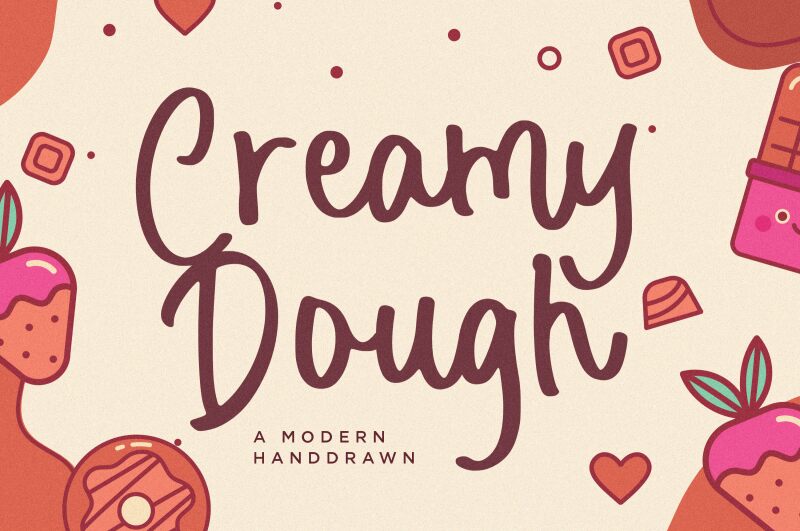
Creamy Dough
Creamy Dough font by Balpirick Studio is a friendly modern script carrying a handwritten style. Its characters are casual, approachable, and warm as if written using an ink pen on real paper. This font follows other popular contemporary calligraphies but gives a unique vibe to each character.
This free handwritten font can be used to create engaging headlines, website titles, book covers, business cards, or vibrant typographic logos. Its simple yet authentic design fits all casual contexts including fun clothes branding or posters and fliers.